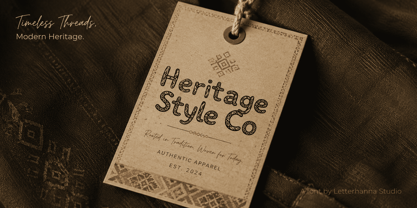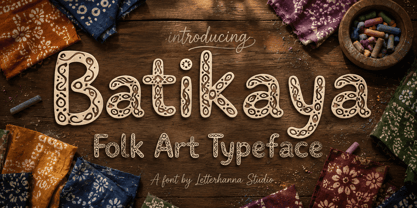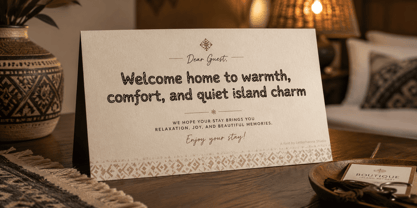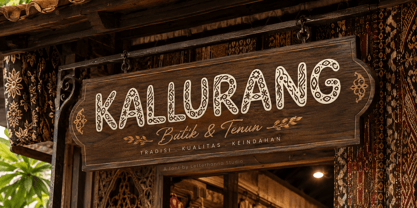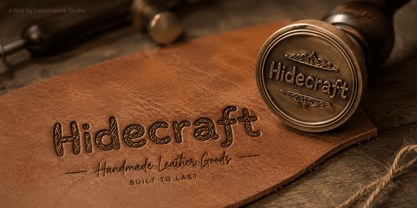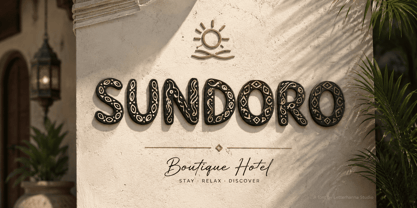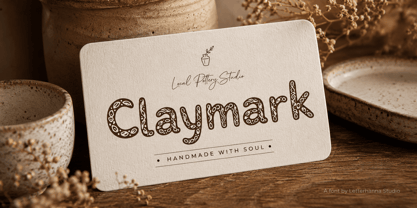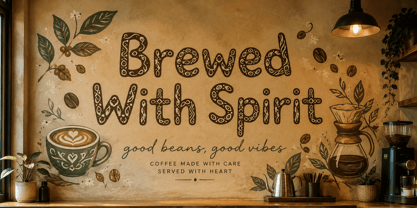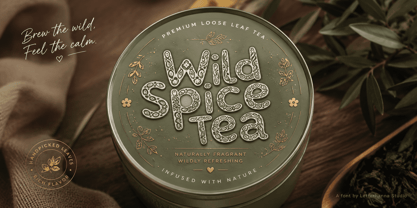
Batikaya
by Letterhanna Studio
The Batikaya Font Family was designed by Rinaldo Hasibuan and published by Letterhanna Studio. Batikaya contains 1 styles. More about this family
Every culture has a visual language before it has an alphabet — a language made of dots, waves, leaves, and spirals passed down through fabric, wood, and stone. Batikaya, a bold new folk-art font, was built to carry that language into modern design. Instead of plain, flat letterforms, each character in Batikaya is filled with hand-drawn ornamental patterns, turning the simple act of typing a word into something closer to weaving a small piece of textile art.
If you have ever run your fingers over a piece of batik cloth and noticed how the pattern changes direction, doubles back, and repeats in unexpected rhythms, you already understand the spirit behind this typeface. Batikaya borrows that same rhythm and translates it into thick, rounded letterforms filled edge to edge with white linework on solid black. The result sits somewhere between a hand-lettered font and a piece of folk illustration — readable enough to work as a headline, decorative enough to stand alone as artwork.
The Shape and Style
Batikaya's letters are chunky, rounded, and confident. There is nothing thin or fragile about this design — every stroke is wide enough to hold an entire pattern inside it, from tiny dotted flowers to long ribbon-like swirls. Uppercase letters feel like carved stamps, solid and grounded, while the lowercase set softens into looping, playful shapes with tails and curls reminiscent of handwriting brushed onto cloth.
What makes this an illustrated display font rather than just a decorative typeface is the sheer density of detail packed inside each letterform. Every "O," every bowl of a "B," every loop of a lowercase "g" becomes its own small canvas. Some letters carry symmetrical, almost mandala-like patterns; others feature loose, organic linework that looks sketched rather than mechanically repeated. That contrast — structured shapes on the outside, free-flowing pattern on the inside — is what gives the font its distinctive batik-inspired personality.
The Vibe
The overall feeling is warm, artisanal, and a little nostalgic — like flipping through a family's collection of hand-dyed textiles or wandering through a weekend craft market. It is bold enough to anchor a poster from across a room, yet intricate enough to reward a closer look. This dual nature makes it especially useful for brands that want to feel handmade and culturally rooted without leaning on anything fragile or overly formal.
A Small Story
Picture a small workshop where an artisan spends an entire afternoon carving a single wooden stamp for fabric printing — each groove cut by hand, each repeated shape slightly different from the last because no human hand repeats a motion exactly the same way twice. Batikaya was designed to hold onto that imperfection. Rather than digitally cloning one pattern across every letter, the ornamentation shifts and breathes from character to character, so the finished word feels less like it was typed and more like it was pressed onto the page.
Where This Font Shines
Because of its bold structure and rich detail, Batikaya works beautifully for product packaging with a handmade or heritage feel, cultural event posters, boutique branding, textile and fashion labels, restaurant menus with an artisanal focus, and any design project that wants to feel crafted rather than manufactured. It pairs naturally with earthy color palettes, kraft paper textures, and photography that leans into texture and tradition.
Designers: Rinaldo Hasibuan
Foundry: Letterhanna Studio